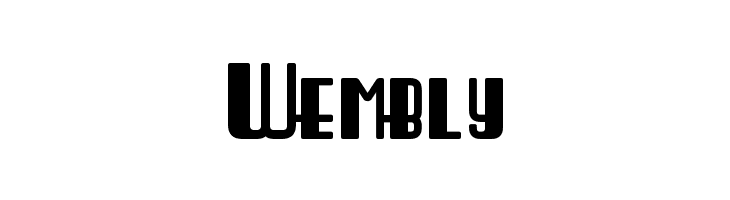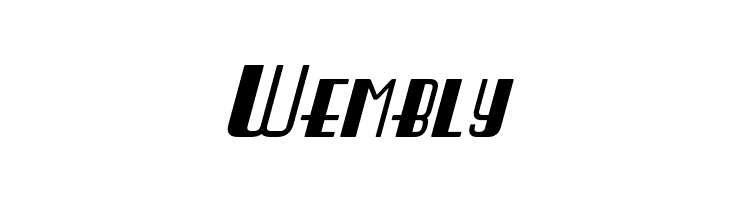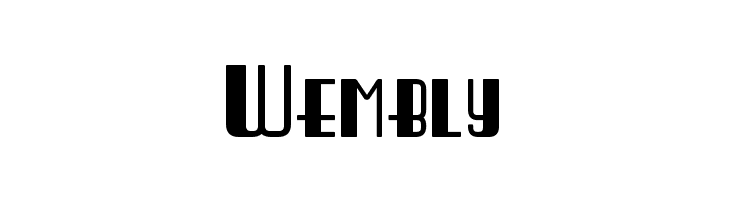
Braddington Font
Braddington Italic Font
A bold, modern italic font with a sleek, dynamic style.
Braddington Bold Font
A bold, geometric, and decorative typeface with a modern flair.